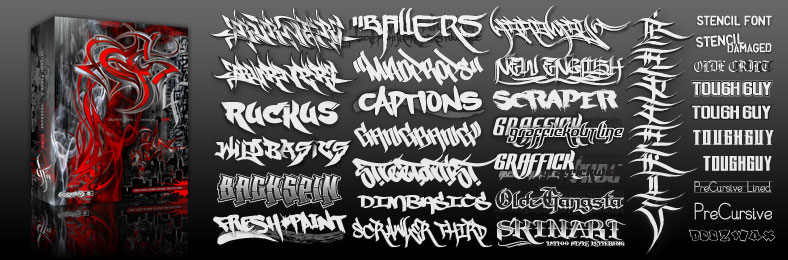
Burner Graffiti Font
Burner™
Burner™ is an advanced, connecting wildstyle graffiti font including over 200 unique letters, numbers & symbols. The family includes 5 styles: outlines, fills, details & more. Mix & match glyphs from 3 alphabets, add end pieces & more.
Ruckus™
Ruckus™ is a simple & legible graffiti style with a thick, crisp outline style on the capitol letter keys & the matching fill style on the lowwercase keys. This font includes a generous array of numbers, symbols, arrows & other glyphs.
StreetArtist™
This tag font includes full alphabets of uppercase & lowercase letters giving 2 disticnt looks as well as interesting substitutions. Street Artist is clean & consistent without sacrificing style.
SkinArt™
SkinArt™ has a hand-made apearance. The style is similar to vintage Tatoo lettering. The caps are in an outline style & the lowercase keys give you a flat, solid style, numbers, punctuation & flourishes are included.
Graffick Graffiti Font
Graffick™
Halfway between graffiti & typeography you find styles like Graffick™. These fonts are derived directly from hand written letters made mechanically perfect to behave more like common digital fonts.
MadProps™
Classic & clean tag style lettering that's easy to read & flexible. Mad Props™ includes 2 full alphabets, full numbers, punctuation & other symbols. This style works well with outlines & effects.
Fresh Paint™
Super fresh paintbrush style lettering with a definite graffiti slant. Reverse italic & highly detailed these hand made letters, splats, swipes, numbers & symbols give an energetic human feel to your text.
Captions™
As its name suggests Captions is a font created to mimic the small ledgible bodies of text that often accompany pieces & productions. The letters were originaly created with spray paint & rendered solid & smooth.
Cali Cholo™
The CaliCholo font is inspired the wide array of Chicano styles seen on the bay area streets. This simple representation is blotchy & rough in emulation of hand written letters using spray paint. 2 Alphabets, numbers, symbols.
Ballers™
Handwritten letters inspired by various ancient scripts. Ballers is a gangsterish tag font that avoids overlap & features long acenders & decenders for an eye catching unique style.
Scraper™
This rough & bold style uses detail & motion to create text with gritty character. These fat letters mimic a paintbrush or pallette knife in a simple graff style.
New English™
This is one of our "horror core" font families. With 2 full alphabets & a full array of symbols & decorations this style can look elegant or insane. New English™ is easy to customize for infinite unique looks.
HardWay™
This calligraphic style draws inspiration from chicano & american gangland handstyles embelished with long strokes. This clean style is best used for logos, emblems & heavily stylized designs.
PreCursive™
This set of two fonts is intended for use by kindergarden & 1st grade teachers or anyone else teaching young children how to write. 2 Fonts are included ,PreCursive Lined has the upper, lower & dotted mid line & the other has only the letters.